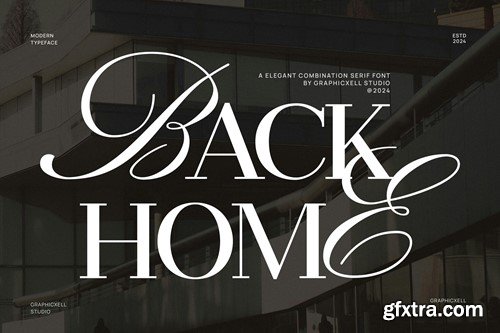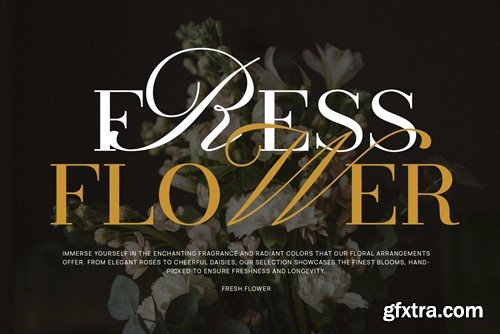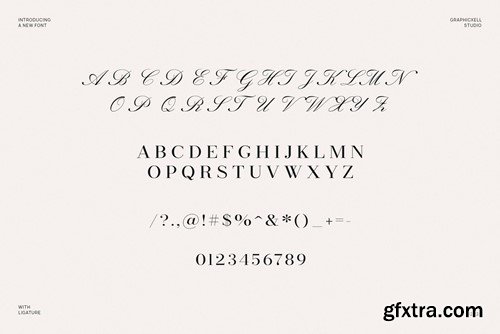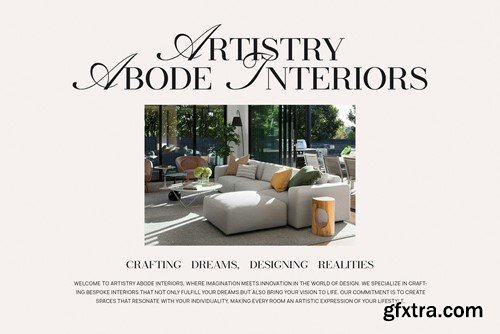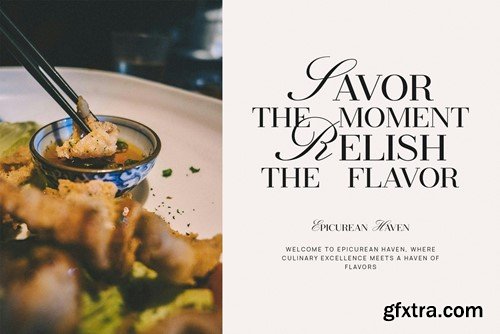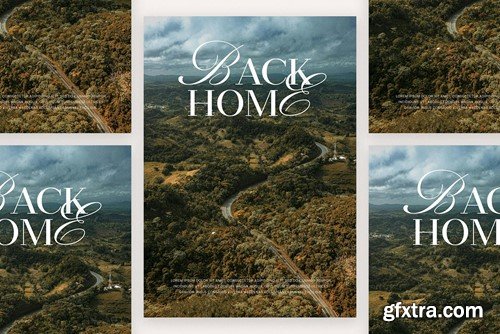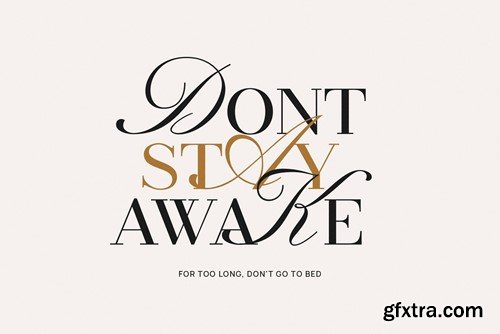
Back Home Serif and Calligraphy Font Typeface UJZTQR8
is a unique and very elegant font for branding and logo designs Elegant serif typeface combined with a classy and modern style. This type of font is very suitable for your various needs such as branding projects, logos, wedding designs, social media posts, advertisements, product packaging, product designs, labels, photography, watermarks, invitations, stationery, and any project, created with high level of readability. you will not be disappointed if you buy this font!! What's Included: Recommended using Adobe Illustrator or Adobe Photoshop. Wish you enjoy our font and if you have any questions, don't hesitate to drop a message & I'm happy to help :)